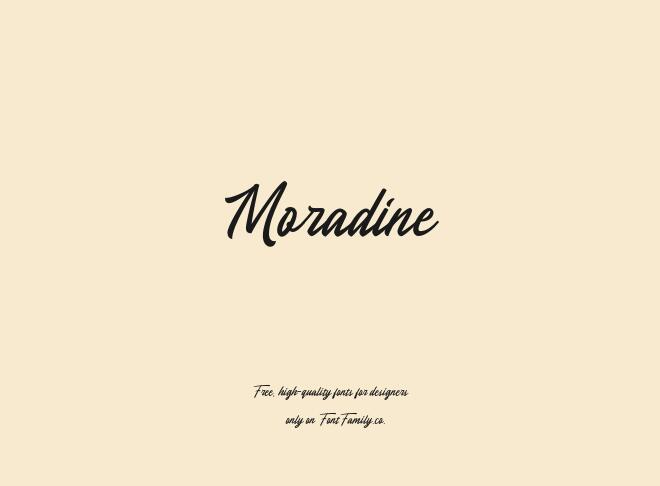
Moradine Font
The Moradine Font is a modern, elegant, and script-style typeface that exudes sophistication and style. Released by Moradine Foundry in 2017, this font exhibits a blend of classic script and modern design elements, making it a versatile choice for various design projects. Its sleek lines and smooth curves make it an excellent choice for branding, logo design, invitations, and even for website design. It stands out among other script fonts due to its unique character and style, ensuring that any design it graces will catch the eye. Its free for personal use license makes it a great choice for designers looking to add a touch of elegance to their projects without breaking the bank. Moradine Font is not just a typeface, it's a statement of style and sophistication.